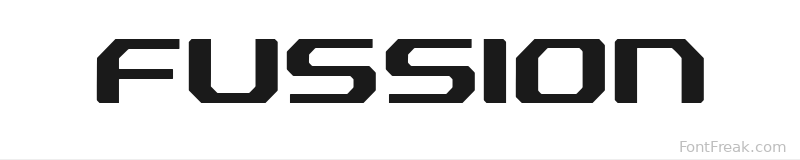
Fussion
About Fussion
Fussion is a striking display font designed by Mukhlis Muhammad, classified as a variatype. Released in 2022, this font exhibits a modern aesthetic with bold, geometric forms that capture attention while maintaining readability. The stroke weight is consistent throughout, providing a sleek appearance that enhances its versatility. The letters are well-spaced, allowing for easy legibility even at smaller sizes. Fussion's design features unique decorative elements that set it apart from conventional typefaces, making it a great choice for creative projects.
This font is ideal for a variety of applications. Its bold character makes it particularly suitable for movie posters, where capturing audience interest at a glance is crucial. Additionally, Fussion works effectively for branding elements, such as logos for tech startups, where a contemporary look is desirable. It can also be utilized for eye-catching headlines in magazines or on websites, drawing readers in with its unique flair. Furthermore, the font's distinctive style makes it a strong choice for restaurant menus, providing a modern touch that complements a wide range of culinary themes.
The target audience for Fussion includes graphic designers seeking a contemporary typeface for their projects, small business owners looking to create a memorable brand identity, and content creators who require an engaging font for their digital content.
What sets Fussion apart is its ability to blend modernity with functionality, making it a versatile choice for various creative endeavors. With its eye-catching design and free availability, Fussion font free download offers an exciting opportunity for anyone looking to elevate their visual projects. Whether for professional use or personal creativity, Fussion stands ready to make a bold statement.